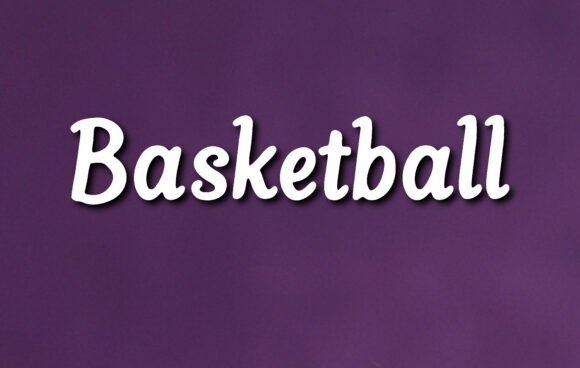
The Perfect Shot: Unpacking Basketball Font
Remember that moment when a fresh design brief hits your desk, and you’re tasked with creating a logo for a local basketball team? The thrill of combining creativity with a sports-driven deadline is exhilarating. In such moments, having the right typography can be the difference between a slam dunk and a turnover. That’s where the Basketball Font comes in – a bold, casual script that’s designed to capture the essence of a bygone era while still feeling modern and polished.
Whether you’re a seasoned designer or just starting out, the Basketball Font is a valuable addition to your toolkit. Its unique blend of nostalgic charm and contemporary flair makes it perfect for sports wordmarks, team merchandise, and event posters. With its friendly silhouette and clear typography, it’s an ideal choice for brands looking to convey a sense of approachability and confidence.
Basketball Font Key Features
- Font Family: Basketball Font is a unique, custom-designed font family, specifically created for basketball-related content.
- Unique Characteristics: Features distinctive, hand-drawn elements and custom-designed characters that evoke the dynamic energy of basketball, including custom basketball-inspired icons and glyphs.
- Character Set: Includes a comprehensive set of characters, including uppercase and lowercase letters, numbers, punctuation marks, and special characters, making it suitable for various text-based applications.
Basketball Font Review
Overall, I think the Basketball Font has a lot of potential, but it’s not without its flaws. ✨ One thing that stands out is the unique, playful feel of the font. It’s perfect for projects that need a fun, energetic vibe. The font’s use of rounded edges and bold lines adds to its sporty aesthetic.
Here are some of the things that I think work well:
- ✨ Unique, recognizable design
- ✨ Perfect for sports or gaming projects
- ✨ Easy to read, even at small sizes
However, there are a few limitations that might hold you back:
- ⚠️ Limited flexibility – it’s not ideal for formal or professional projects
- ⚠️ May be difficult to customize or edit
- ⚠️ Not as versatile as other fonts
Overall, I think the Basketball Font is a great choice for projects that need a fun, energetic vibe. It’s perfect for sports, gaming, or other projects that require a playful aesthetic. However, it may not be the best choice for more formal or professional projects.
The Basketball Font is commonly used in sports-themed designs, such as:
– Basketball team logos and branding
– Sports event posters and flyers
– Athletic apparel and merchandise